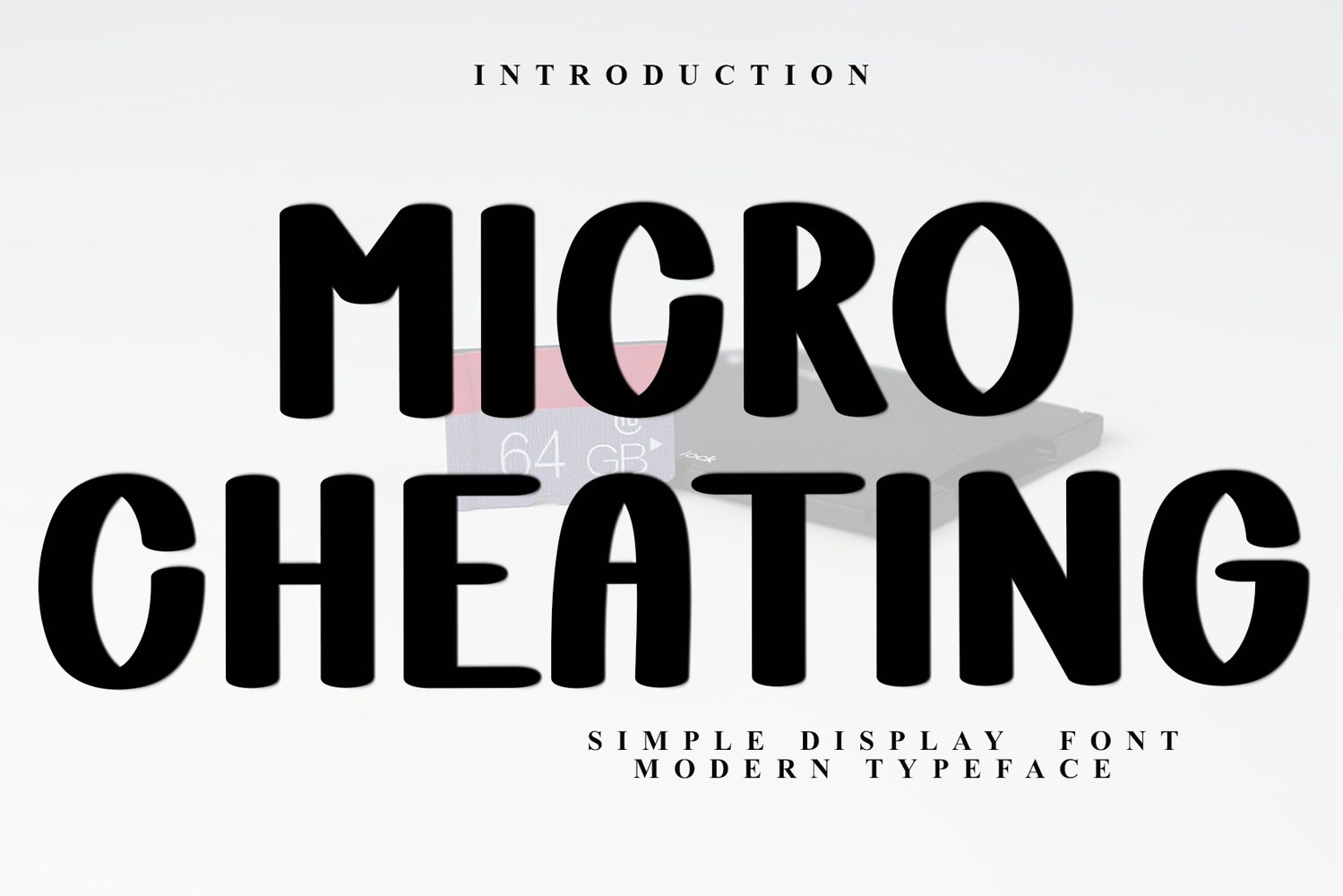
Micro Cheating
Micro Cheating is a beautiful and eye-catching font designed with a soft, unique touch. Its distinctive strokes give it a special character, making it meaningful and versatile for future use. With various characters, it’s perfect for design projects, crafts, and other creative works.